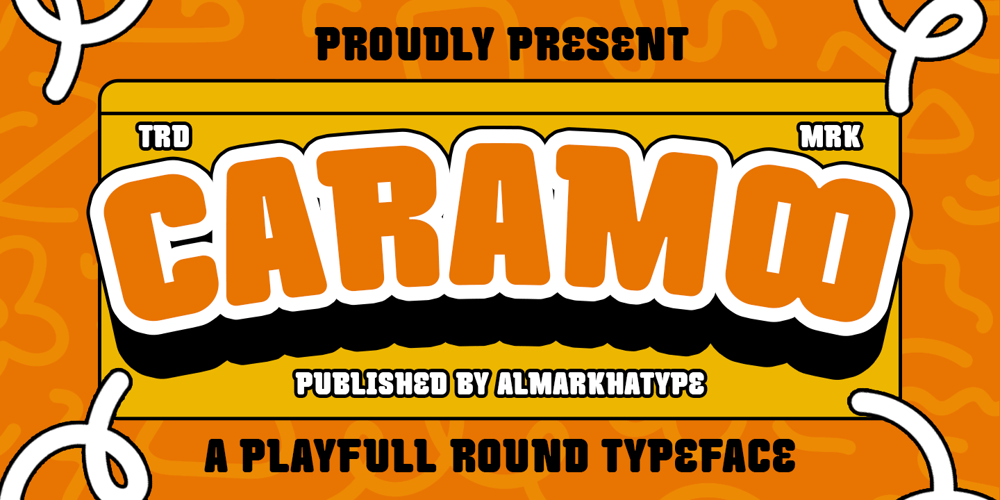
Caramoo Font Family was designed by Abdul Malik Wisnu, Rivo Dwi Adriansyah and published by Almarkha Type. Caramoo contains 1 styles and family package options. Introducing Caramoo, a rounded bold font that adds a playful touch and impressive versatility to your designs. Perfect for food product branding, display headlines, or packaging design, Caramoo font is sure to bring joy to your work.With its bold, rounded design, the Caramoo font is made for creating attention-grabbing designs. Ideal for brands seeking to make a bold statement and stand out, it also supports Latin multilingual characters for international projects.Don’t wait—add fun and excitement to your next project with Caramoo font. Its playful, youthful tone is ideal for crafting memorable designs. Whether for a food brand or lively event, Caramoo font helps capture your project’s essence. Get ready to make your designs pop with this bold, playful font!